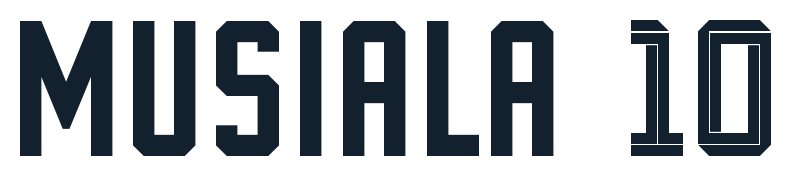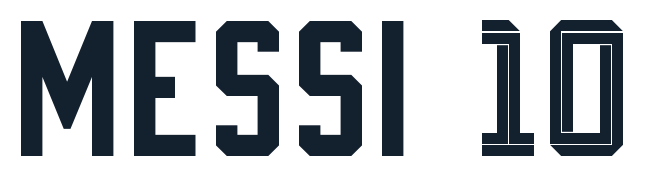
Germany 2026 World Cup jersey number font inspired by the official national team kit style. Includes TTF, OTF and vector files with full A–Z letters and 0-9 numbers, ready for jerseys, posters and social media graphics. Instant digital download - no physical product.
Germany 2026 World Cup Font Kit - Bold National Team Number Style
The Germany 2026 World Cup Font Kit brings the sharp, modern number style of the national team’s tournament jersey into your own designs. This bold geometric typeface is built for football projects, giving your work the same strong, professional look seen on World Cup shirts. It is ideal for designers, printers and fans who need fast, high-quality graphics for both print and digital use.
Complete A–Z uppercase letters and numbers 0–9
Accented characters to support names with special letters (e.g., Á, É, Ö, Ü, Ç, Ć, Ğ – depending on how you export the font)
A bold, match-ready number style suitable for home, away and third jersey concepts
You can use this bundle to create custom football jerseys, fan shirts, event posters, YouTube thumbnails, social media graphics, banners, stickers and more. The strong outlines and clear shapes help your designs stay readable on TV-style graphics as well as on printed garments.
Designed for football projects: Ideal for jersey printing, namesets, scoreboards, banners and matchday graphics
Inspired by Germany’s visual identity: Reflects the sharp, confident style associated with the national team on the World Cup stage
Because of its clean construction and strong character, this font kit gives any football-themed design a powerful, professional look. You can reuse it across multiple projects simply by changing colors, backgrounds and layouts.
Use this Germany 2026 World Cup Font Kit to bring the spirit of the tournament to your designs. Whether you are creating jerseys, posters, fan art or merchandise, this font will help your visuals stand out with a bold, modern German national team look.